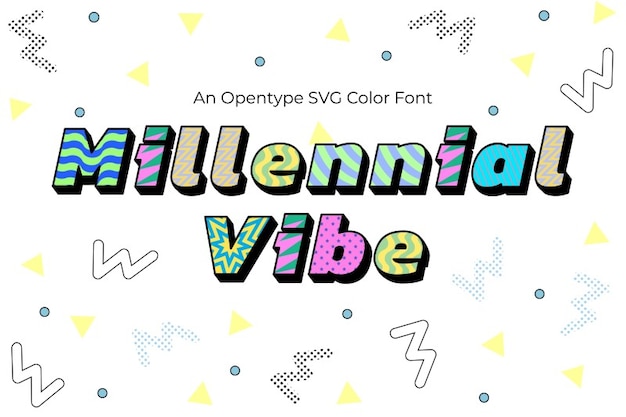
Millennial Vibe font is a visual treat, like stepping into an aesthetic wonderland where letters take on a decorative, 3D extravaganza. Each character pops with style, turning your text into a dazzling masterpiece. It's the perfect choice to add depth and dimension to your designs, infusing a trendy vibe while embracing the charm of decorative aesthetics. Millennial Vibe is the font that gives your projects a multidimensional, modern edge that's impossible to ignore.